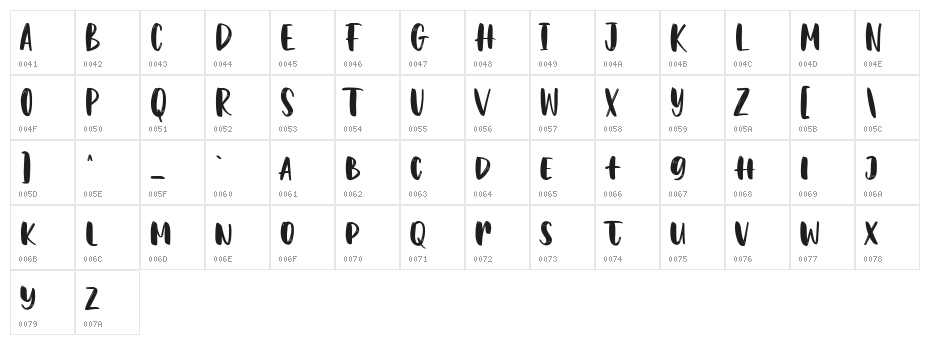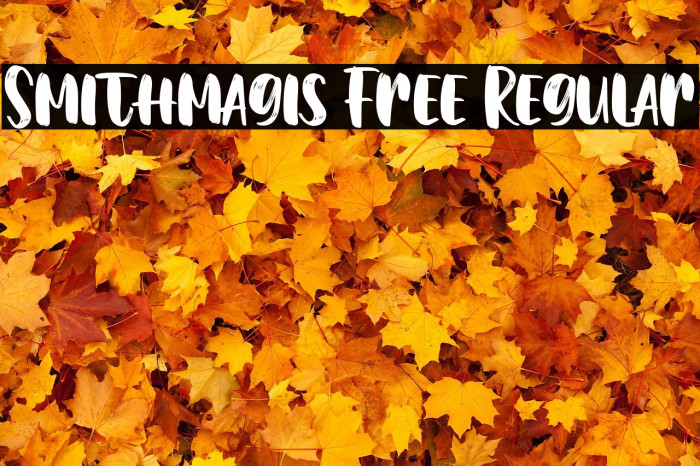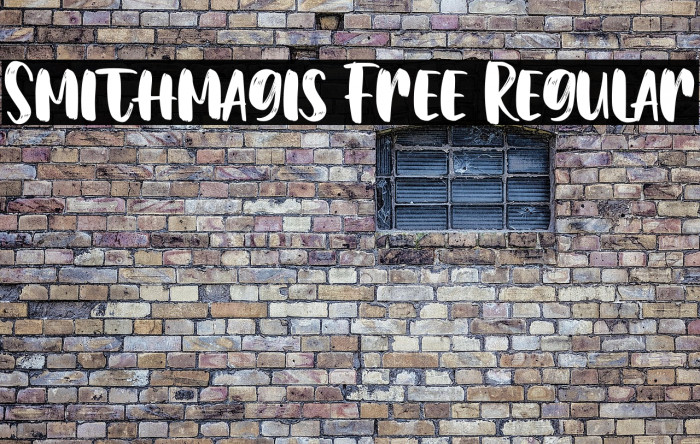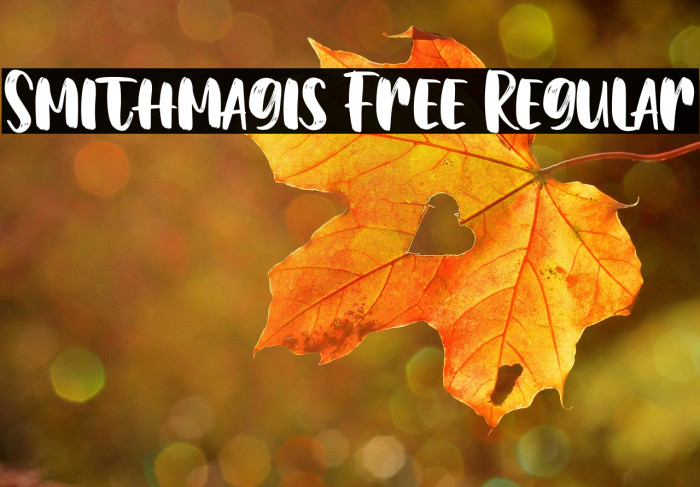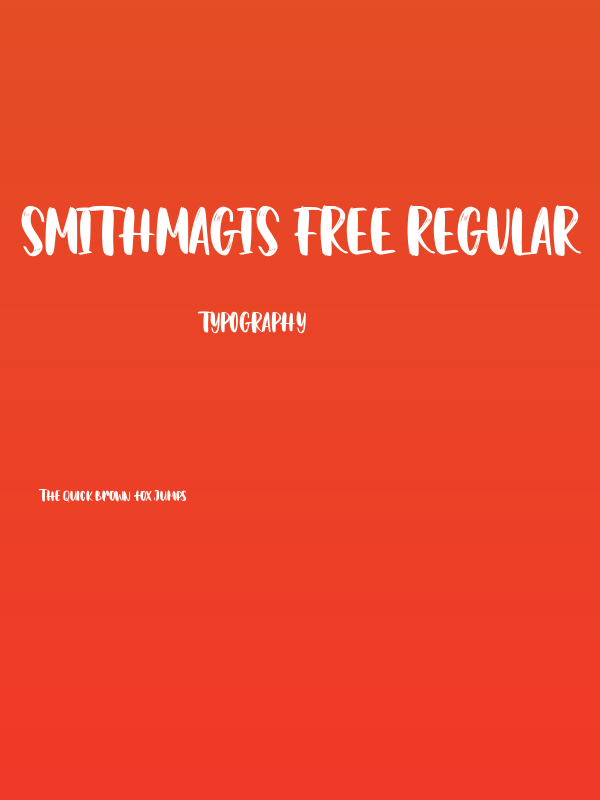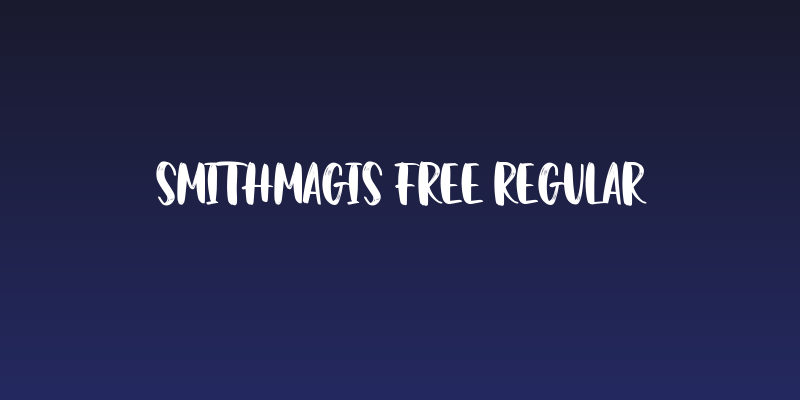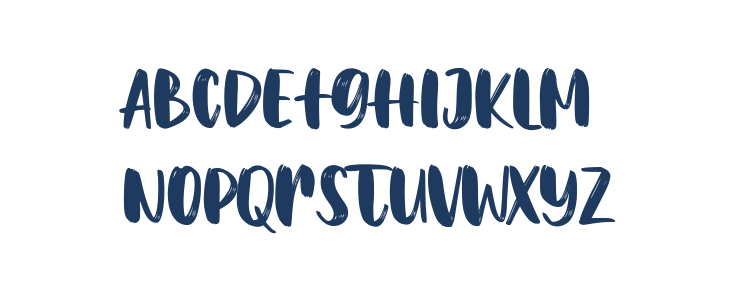
Smithmagis Free Regular Font
Smithmagis Free Regular Description
This font features a bold and expressive handwritten style, characterized by thick, brush-like strokes that convey a sense of energy and dynamism. The letters are slightly slanted, adding a casual and informal touch to the overall appearance. The uppercase and lowercase letters maintain a consistent style, with rounded edges and varying stroke widths that create a lively and engaging look. The font's playful nature makes it suitable for projects that require a personal and approachable feel.
| Proposed Projects | Ideal for greeting cards, posters, branding materials, and social media graphics that aim to convey a friendly and energetic vibe. |